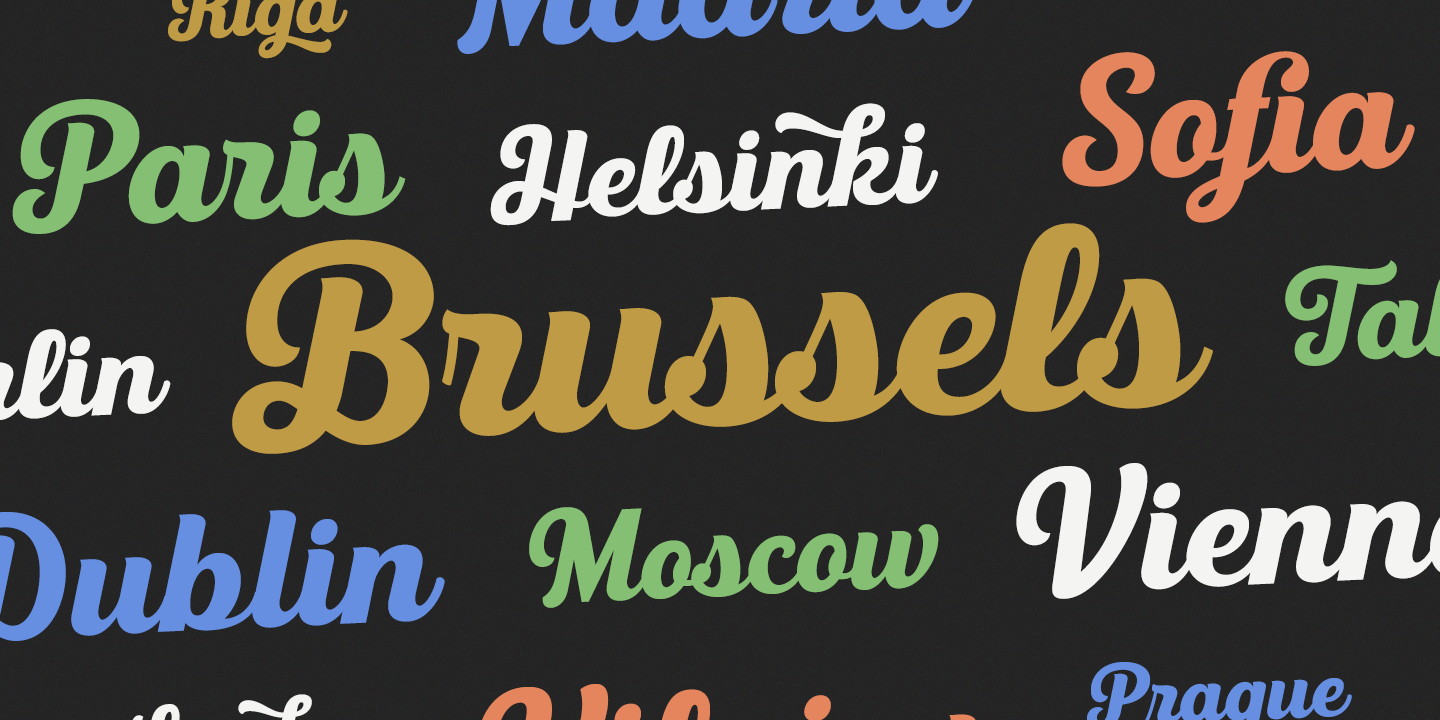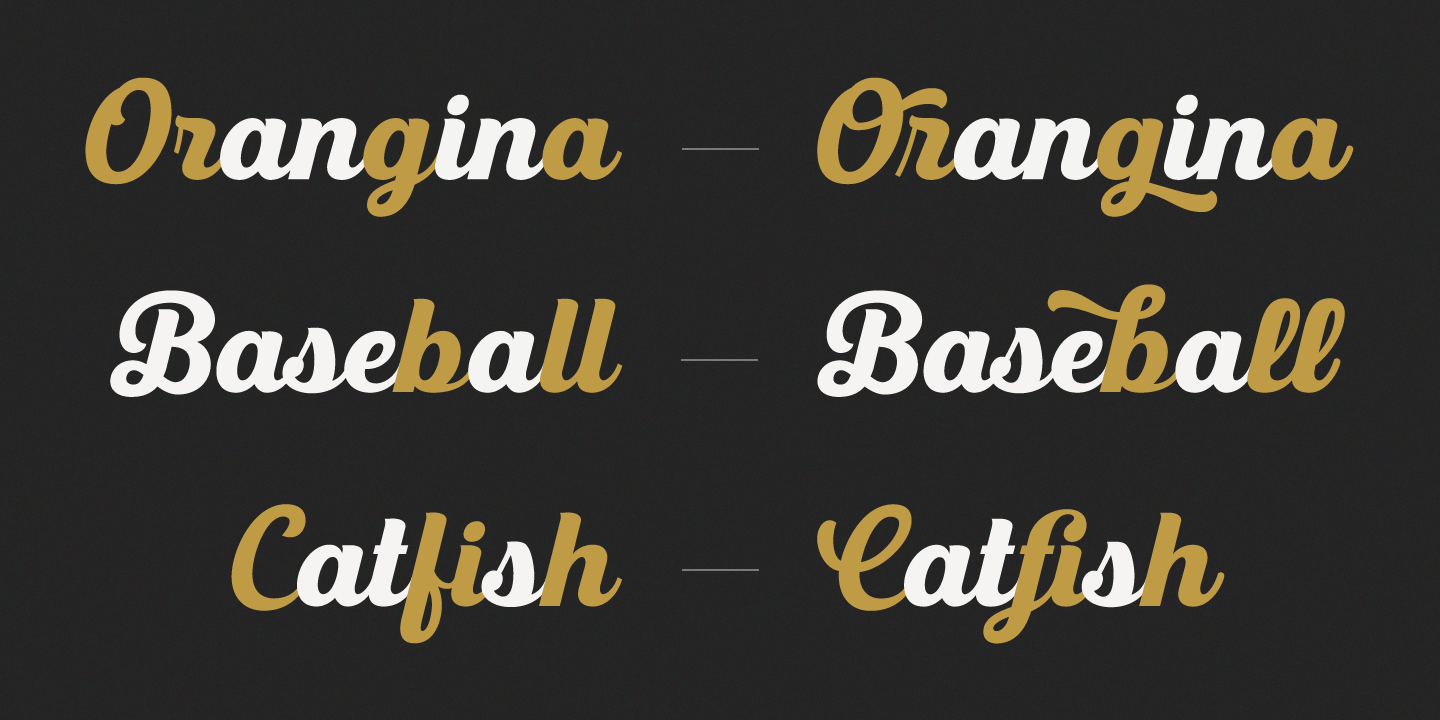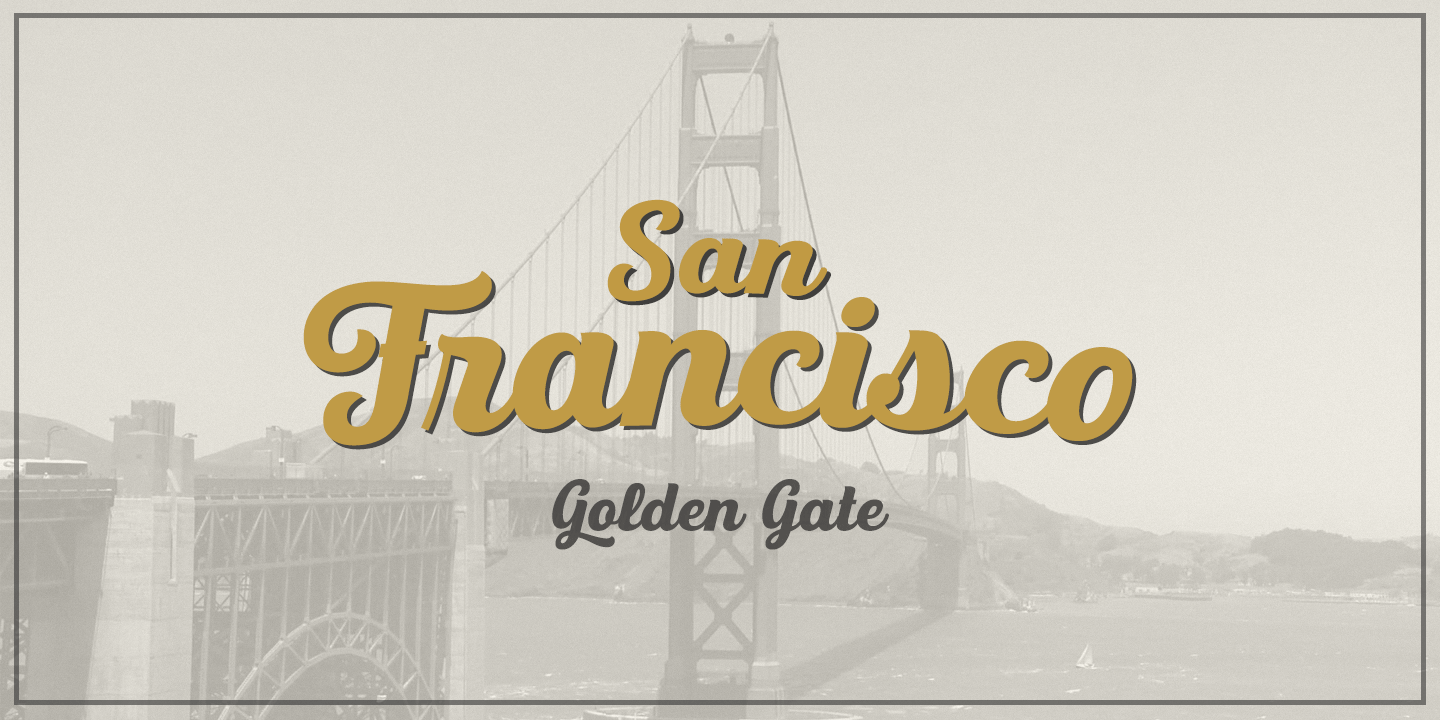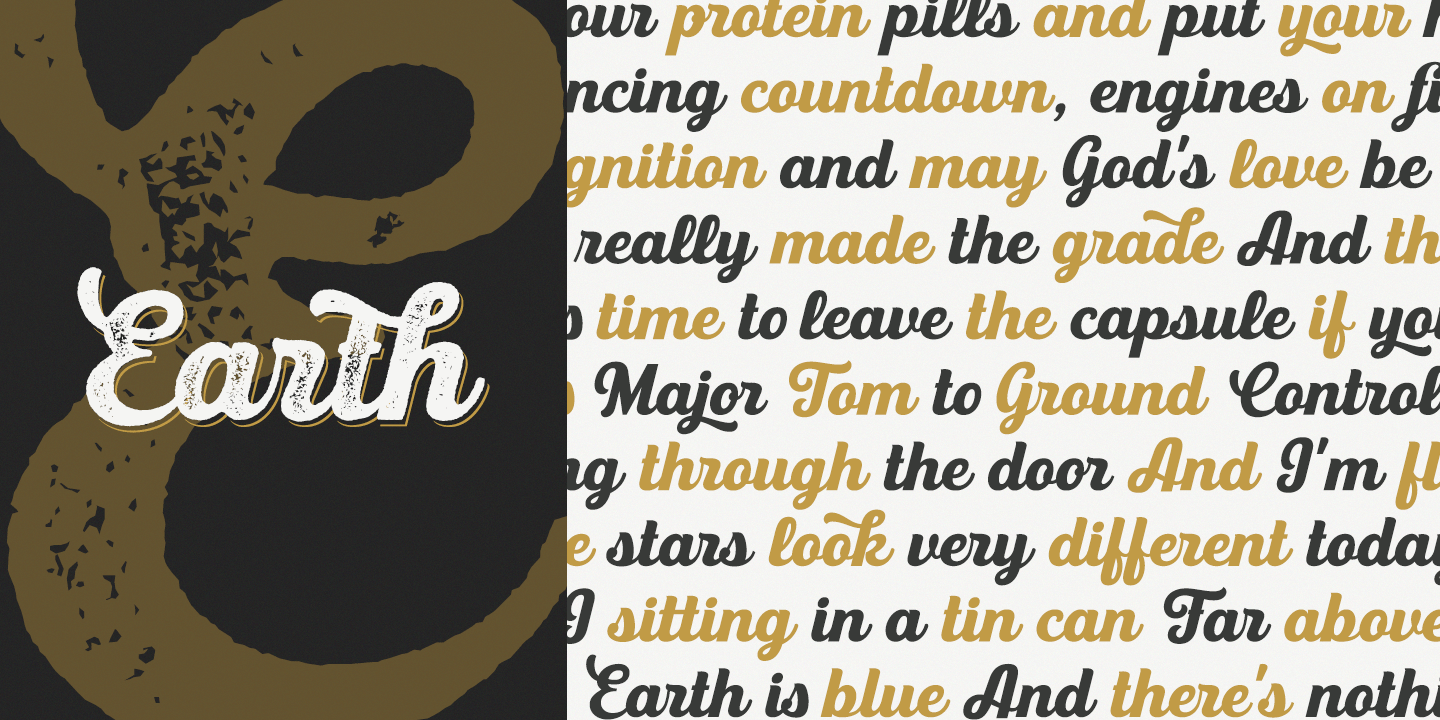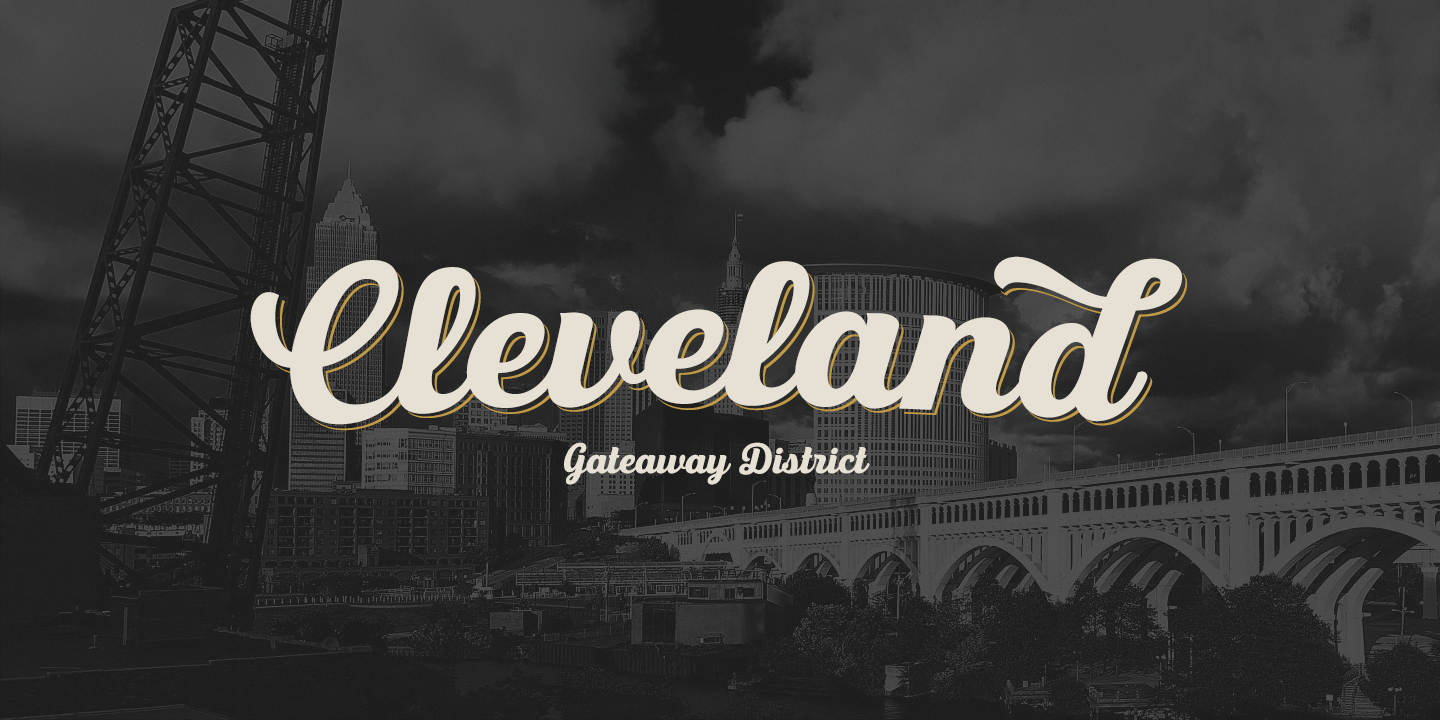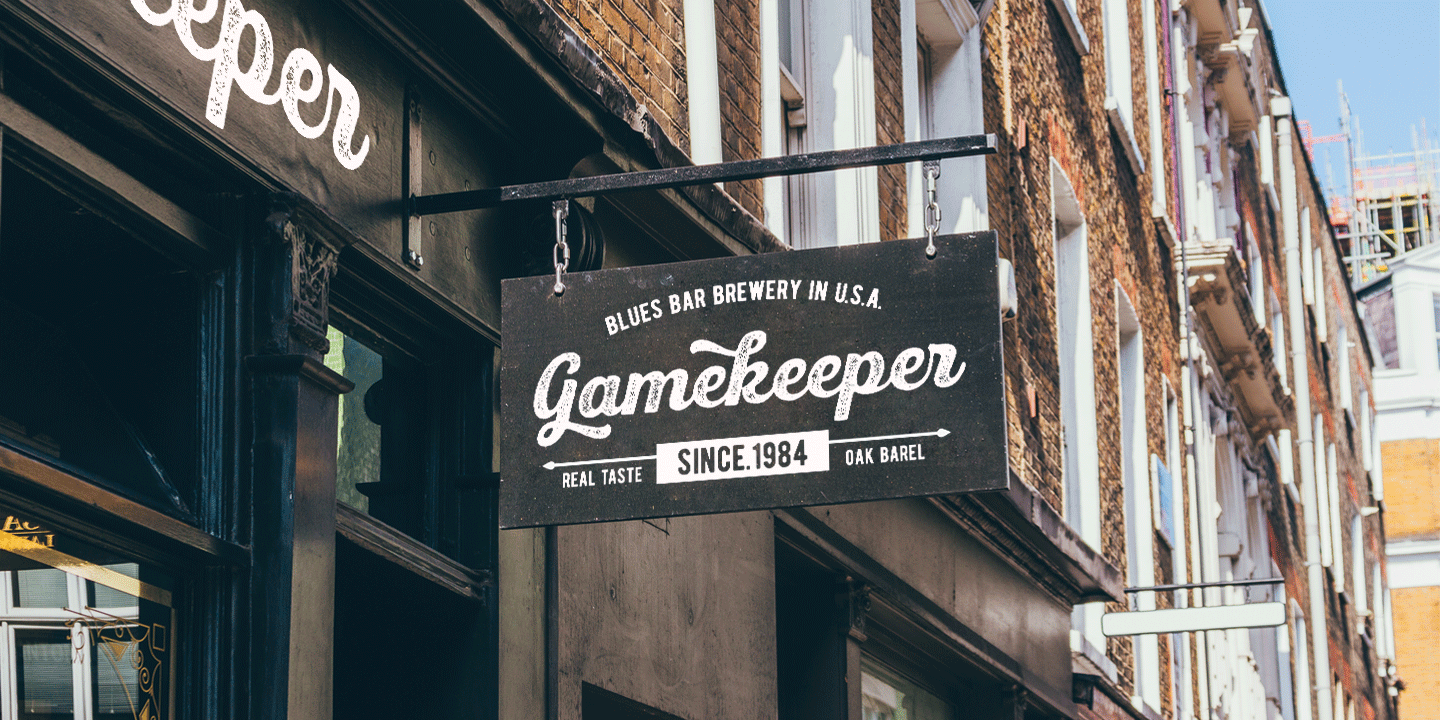
UT Triumph Script
About UT Triumph Script
UT Triumph Script by Uniontype is a modern type family inspired by classic Americana scripts. The family consists of regular, vintage, and press styles. Also it contains shadow layers with which you can quickly & easily add depth of UT Triumph Script…